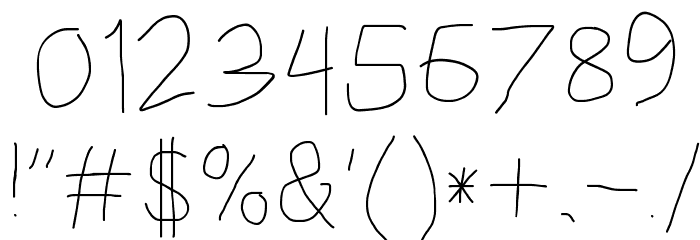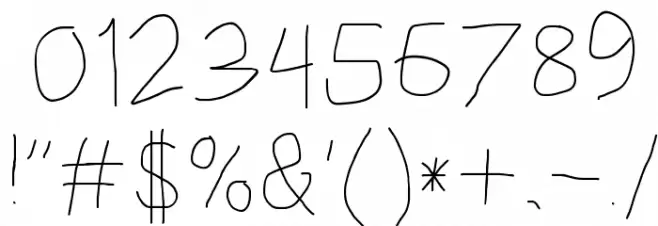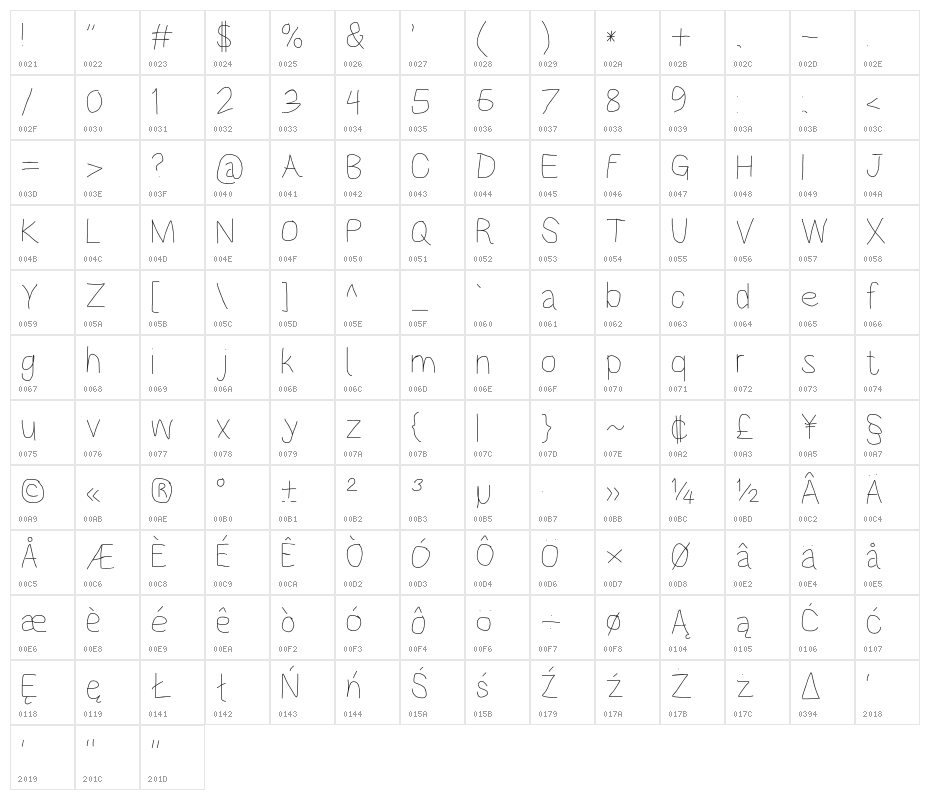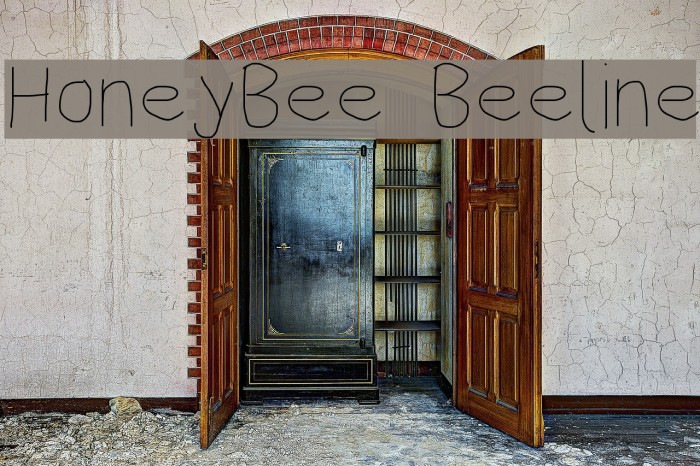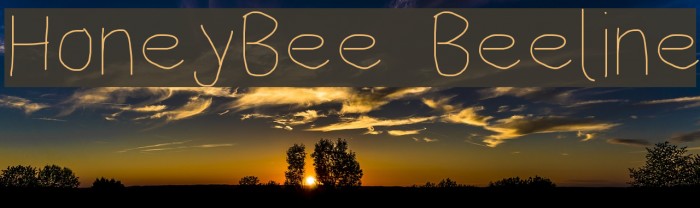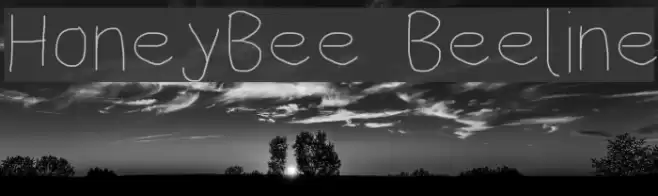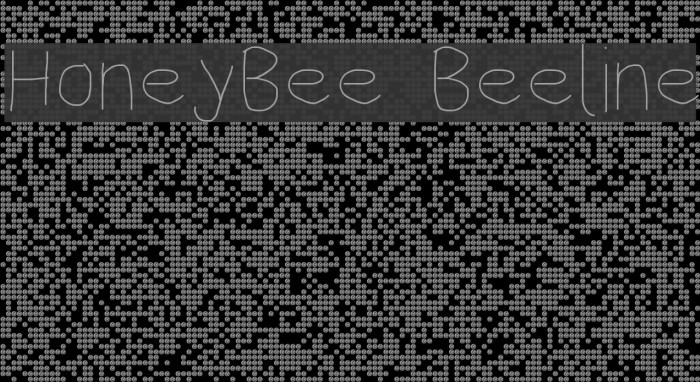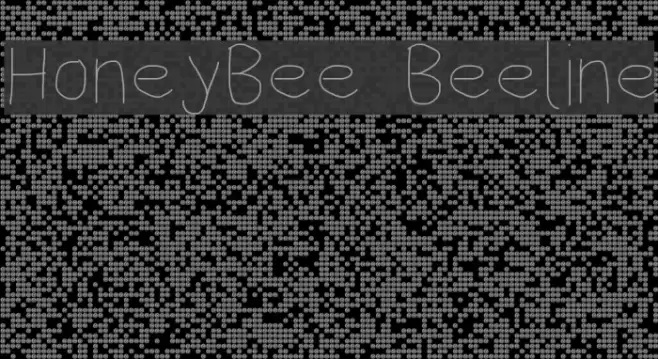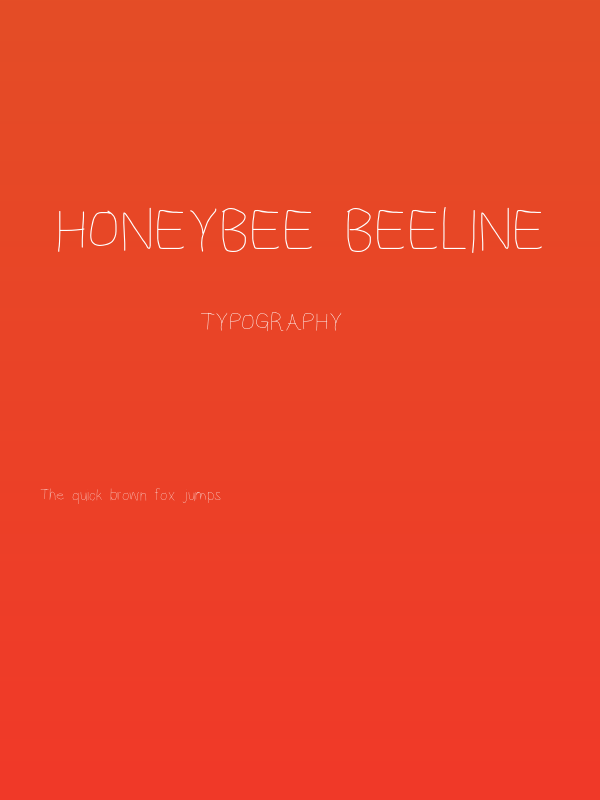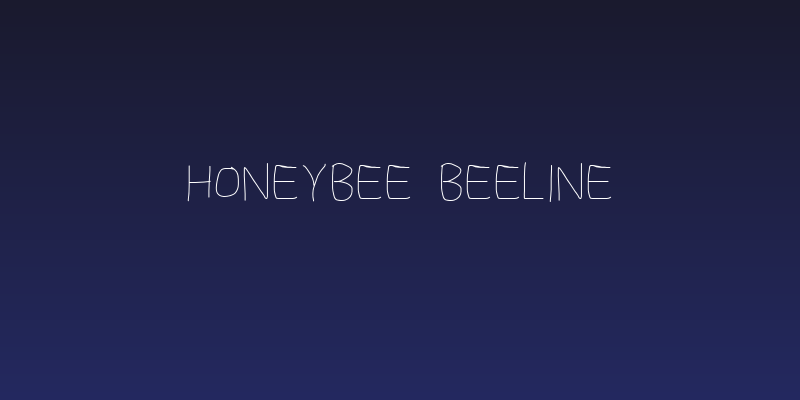
HoneyBee Beeline Font
HoneyBee Beeline Description
This font features a playful and whimsical handwritten style, characterized by its thin, slightly irregular strokes that give it a casual and friendly appearance. The letters are tall and narrow, with a consistent baseline and a slight slant, adding to its informal charm. The uppercase and lowercase letters maintain a uniform height, while the numerals and special characters integrate seamlessly with the alphabet, enhancing its versatility. The overall design is clean and legible, making it suitable for a variety of creative projects.